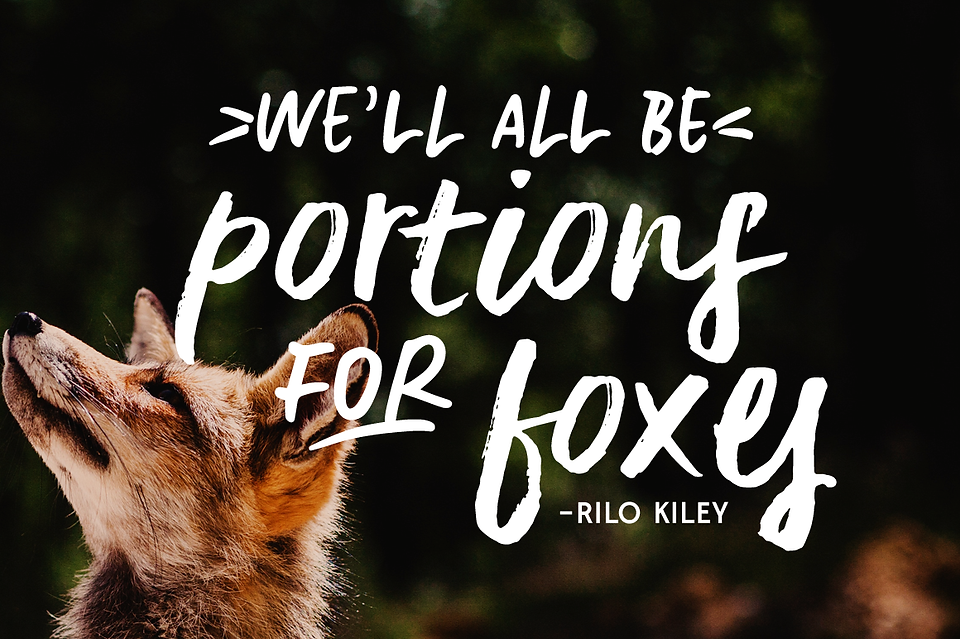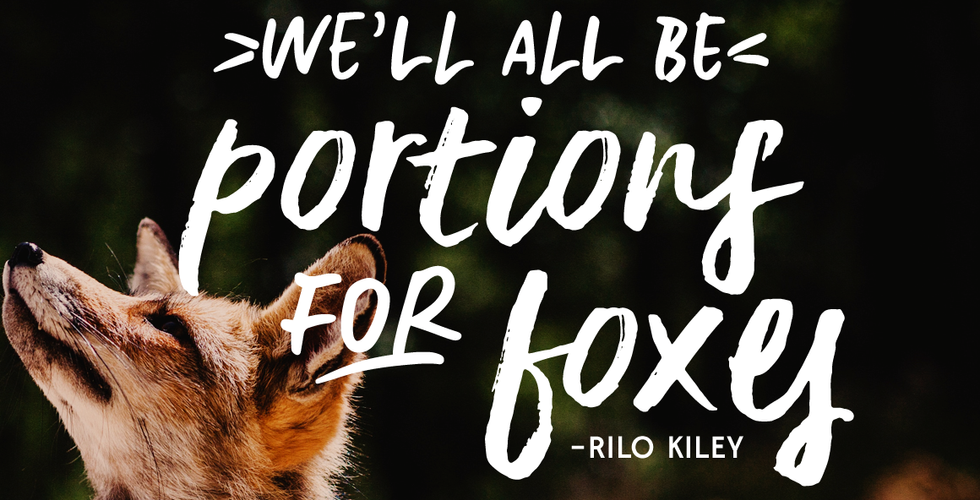
New font! Delirium
I got my font of the month in! *phew* It's a textured brush font and I absolutely loved making it. I went through nearly 4 brush pens, but I am quite happy with the results.
After I finished Delirium, I decided to turn it into a font duo, and added an all caps second font to go along with it. This second font has two different sets of caps, which you can alternate in order to increase the handwritten feel of your text. In addition, I have added dozens of little squiggles, swashes, doodles, scratches... Well you get it. Things to decorate your texts, or add a little grunge (which I love) to your designs.
Delirium